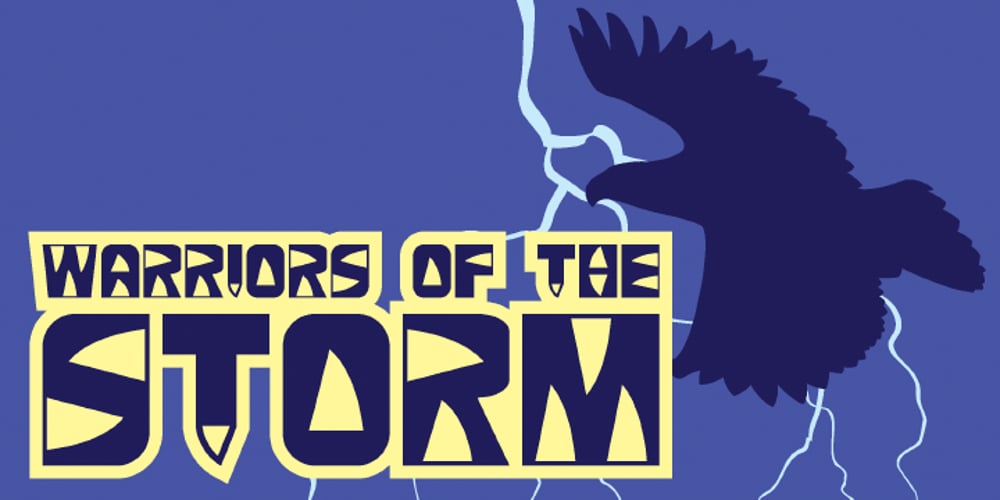
Blue Thunderbird
Blue Thunderbird font
Blue Thunderbird Font Family was designed by Ronnie Cruz and published by Cyberian Khatru. Blue Thunderbird contains 1 styles and family package options. This font is meant evoke Native American art of the South-West US. The examples of this art that I’ve seen are very geometric, using rectangles and triangles to create all the images. This font isn’t meant to be an authentic example of native American art, but is inspired by such. http://homepage.mac.com/baronvoncruzer/cyberiankhatru/bluethunderbird.htm